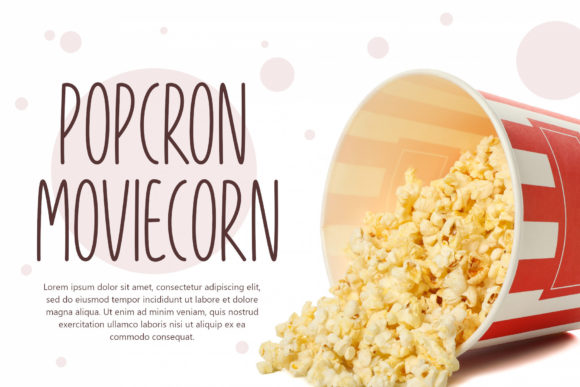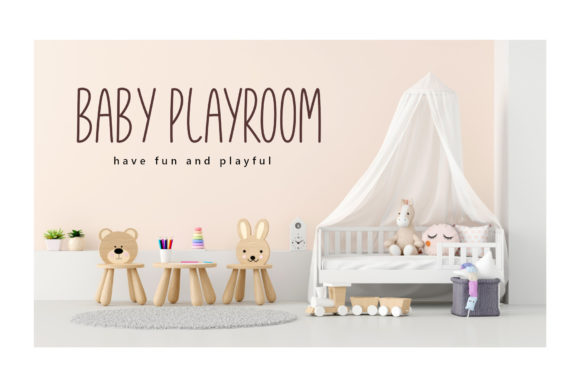
Princess Font
db-ku.com - Script & Handwritten -- Princess is a tall and sweet handwritten font. It looks lovely on a variety of design ideas, so add it confidently and you will amaze your readers.